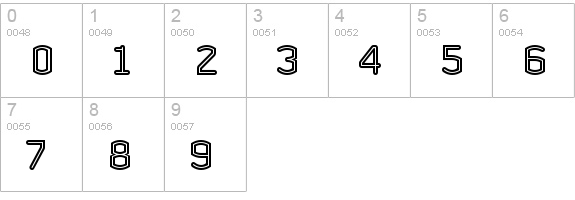
PFInterface Inline Font Details
The PFInterface Inline font is a modern and stylish typeface that adds a unique touch to any design project. Its clean lines and geometric shapes make it a versatile choice for both digital and print applications. The inline style gives the font a dynamic and eye-catching appearance, making it perfect for headlines, logos, and other display purposes. The best part is that this font is completely free to download! You can easily access the PFInterface Inline font at FontsMarket.com, where you can find a wide range of free fonts to enhance your creative projects. Don't miss out on this opportunity to add a touch of sophistication to your designs with the PFInterface Inline font – download it now and start creating stunning visuals today!